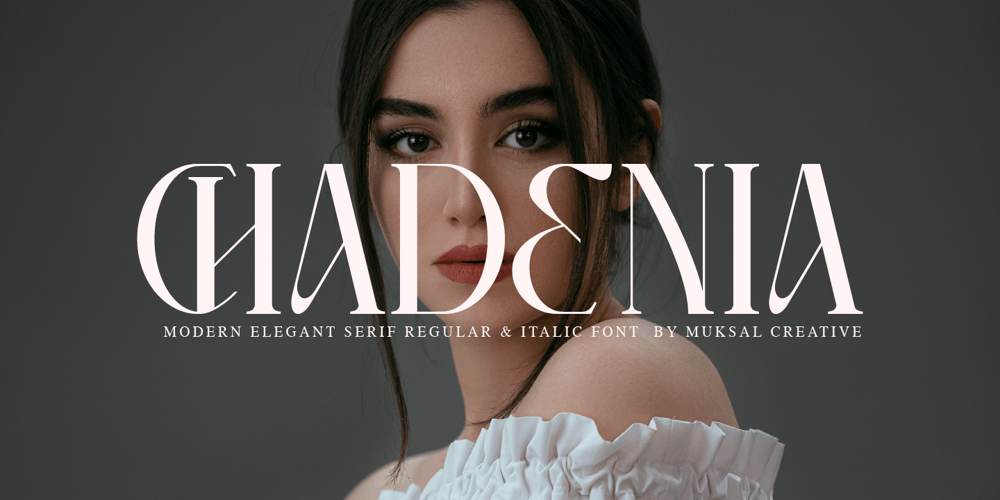
Chadenia
Chadenia font
Chadenia Font Family was designed by Muksalmina and published by Muksal Creatives. Chadenia contains 2 styles and family package options. Chadenia Modern Elegant serif Font typeface with beautiful alternate, special glyphs, ornament and multilingual support. It’s a very versatile font that works great in large and small sizes. Perfect for editorial projects, Logo design, Clothing Branding, product packaging, magazine headers, or simply as a stylish text overlay to any background image.